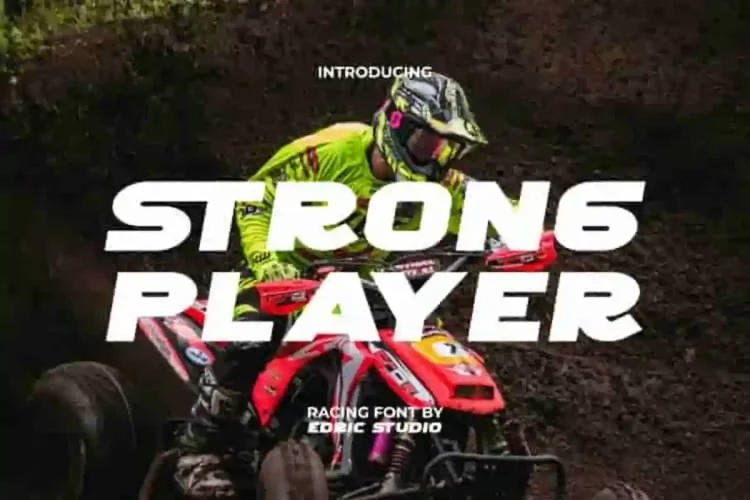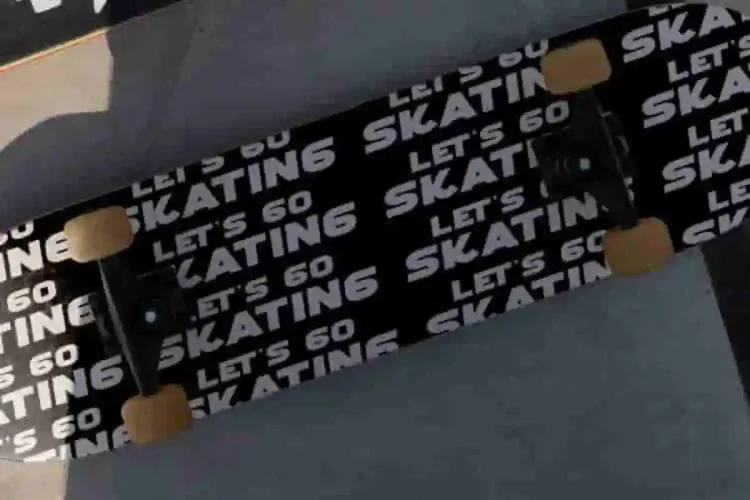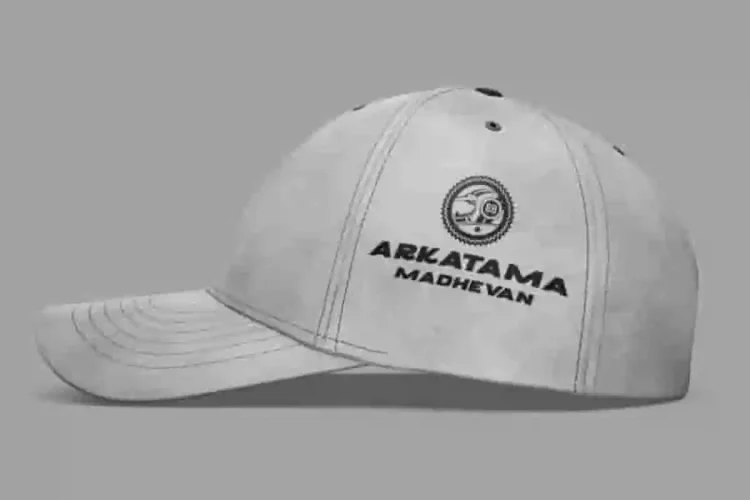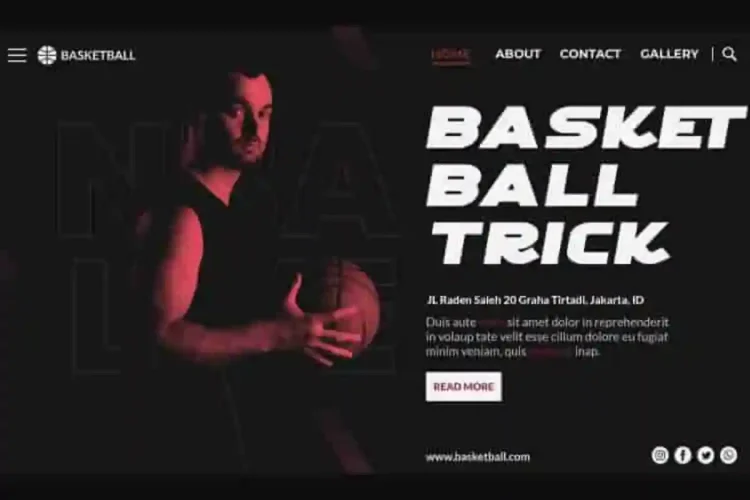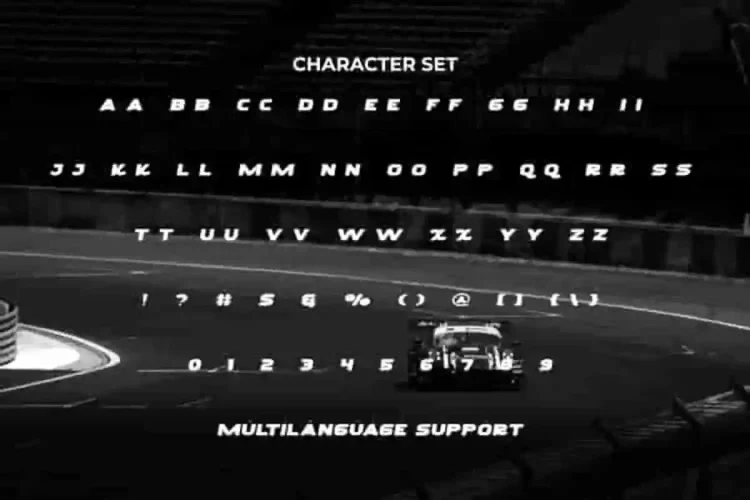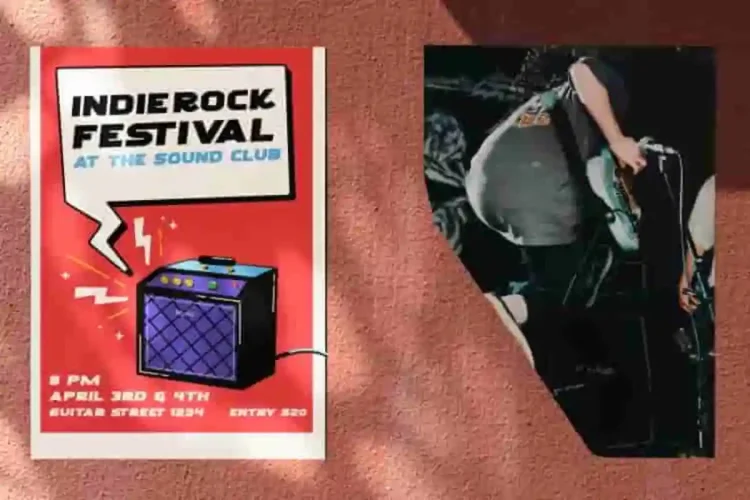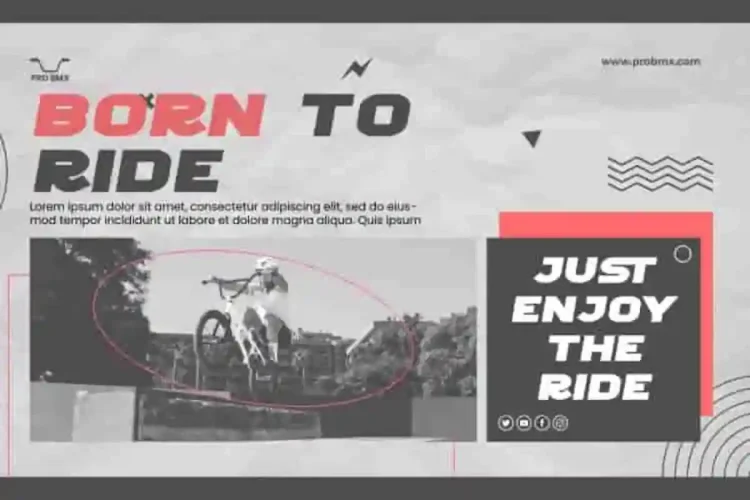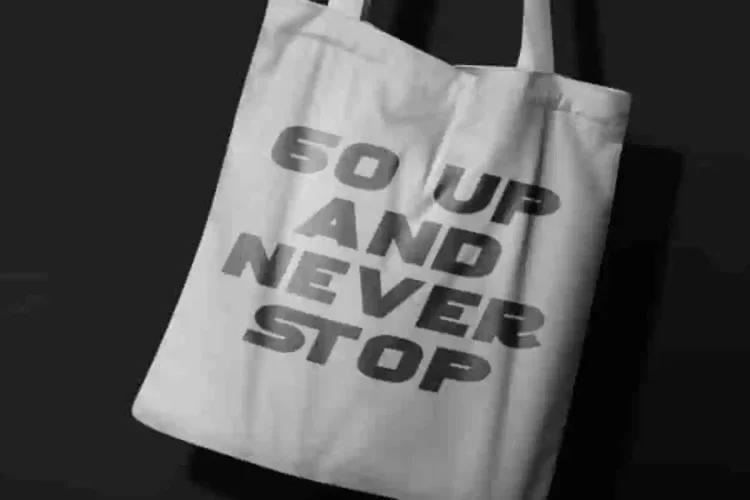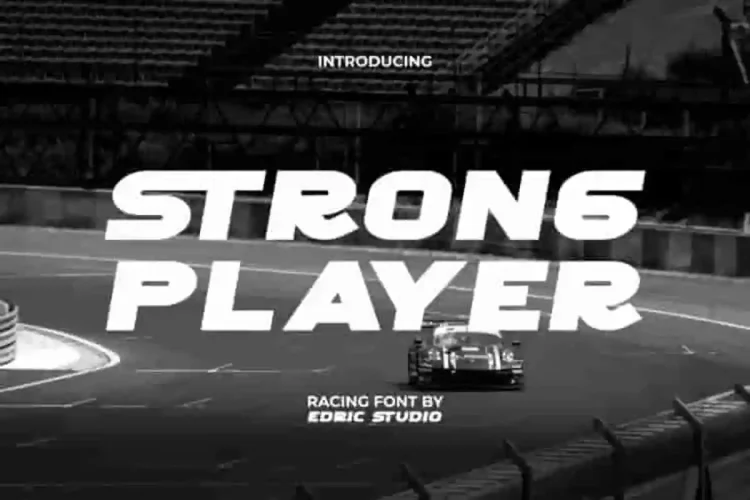
Strong Player Modern Font is a modern sport display font that comes with a unique touch. If you need a bold and strong all-caps sans serif display font, this could be one of your choices. Perfect for banner, blogs, brochure, flyer, headers, logos, mockup, packaging, poster, screen printed, sticker, template, title, website, wrap design, and many more.
Strong Player Font It works seamlessly for event promotions, festival graphics, gaming titles, and even screen-printed designs. Designed to meet the needs of fonts in a variety of different situations. Perfect for accessories and merchandise, clothing brand, craft, event or festival, fashion, games, graphic designer, racing, sports, and many more.
Strong Player Display Font a playful typeface with unique decoration in each character. Combine different characters for a bespoke, handcrafted feel. It’s tested to work well in the Adobe Apps (Illustrator, Adobe InDesign, Adobe Photoshop) even work on Microsoft Word. All of these characters are available through the glyph panel, moreover each letter has its own unicode (PUA) so you can access all the characters easily.